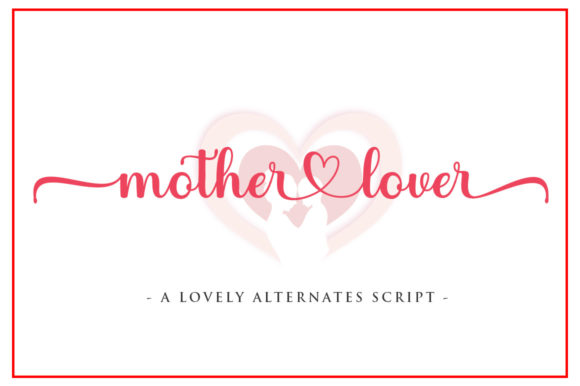
Behold, Mother Lover Font, a captivating script font that will ignite your creative spirit like never before! This exquisite creation by Romie Creative is a masterpiece of digital artistry, meticulously crafted to bring charm and elegance to your designs.
As you delve into the depths of Mother Lover's characters, you'll discover a world of intricate details and flowing lines that dance across the page like a symphony of ink. Each letter is a work of art, adorned with delicate flourishes, graceful curves, and sweeping swashes that evoke a sense of timeless beauty.
Unleash the true power of Mother Lover Font and watch as your words transform into breathtaking creations. It's the perfect choice for prayer cards, wedding invitations, logos, branding, social media graphics, and any project that demands a touch of sophistication and charm.
With Mother Lover Font at your disposal, you'll elevate your designs to new heights, capturing the attention of your audience and leaving a lasting impression. Its versatility knows no bounds, whether you're crafting heartfelt messages, enchanting logos, or simply adding a touch of elegance to your everyday writing.
Don't settle for ordinary fonts. Embrace the extraordinary with Mother Lover Font and embark on a creative journey that will redefine your artistic expression. Let your imagination soar and witness the magic unfold as your designs blossom into works of art. The possibilities are endless, and the beauty is all yours to explore.